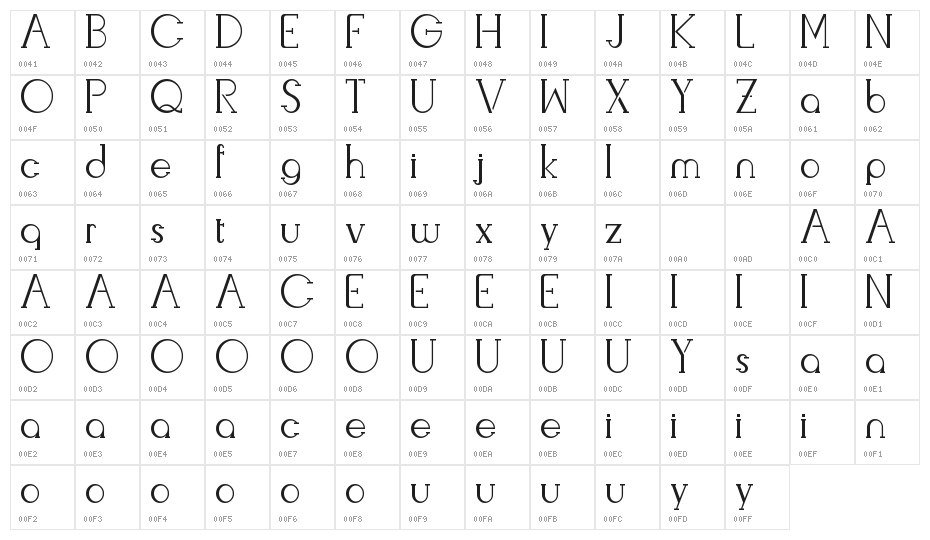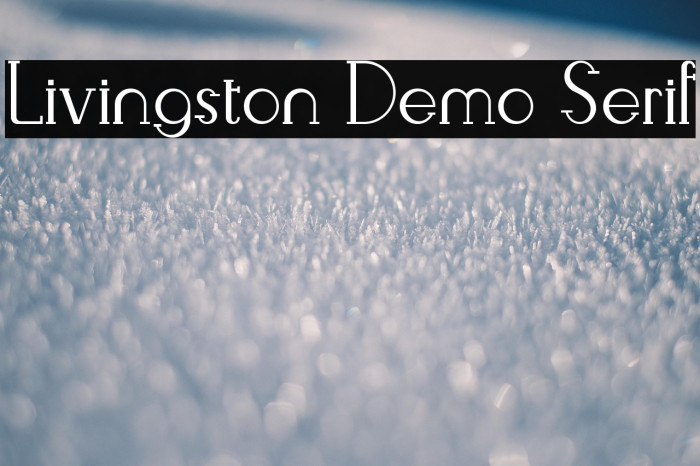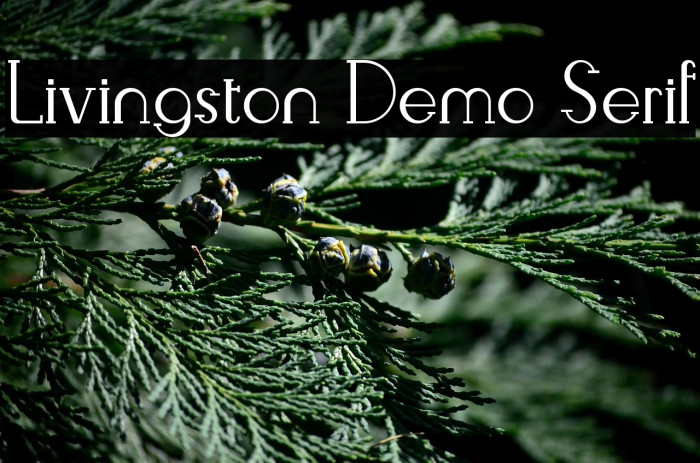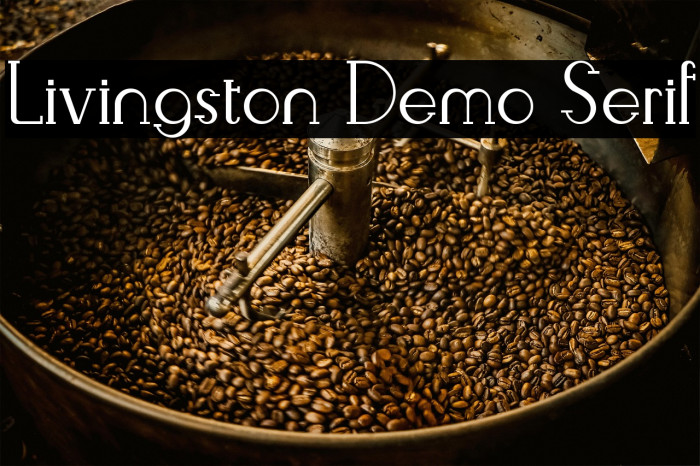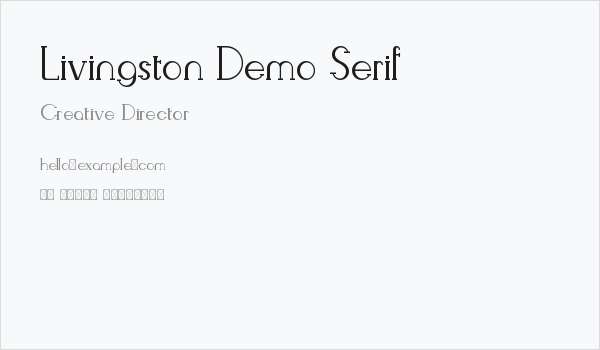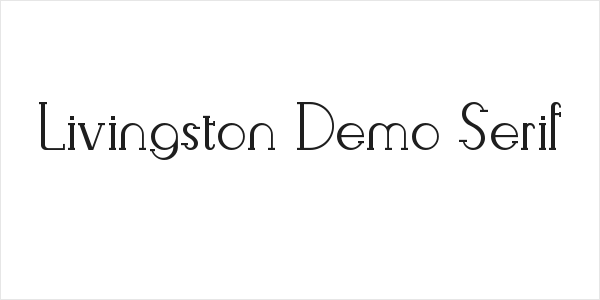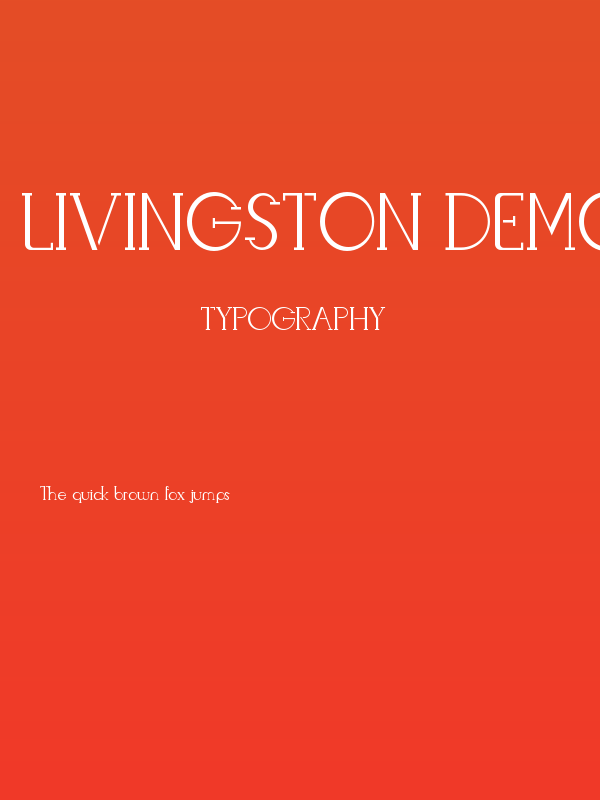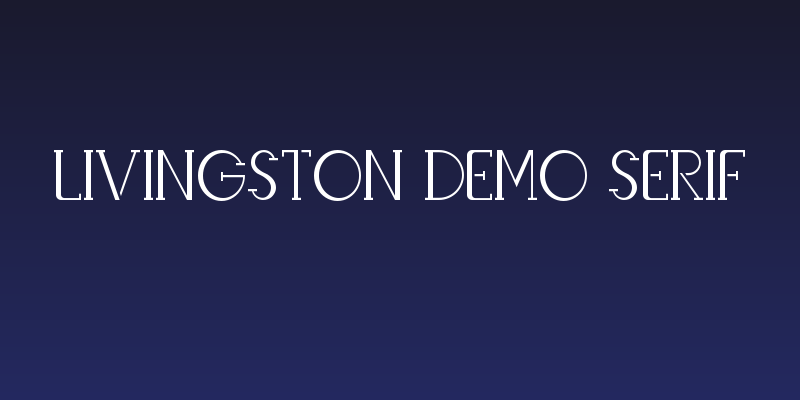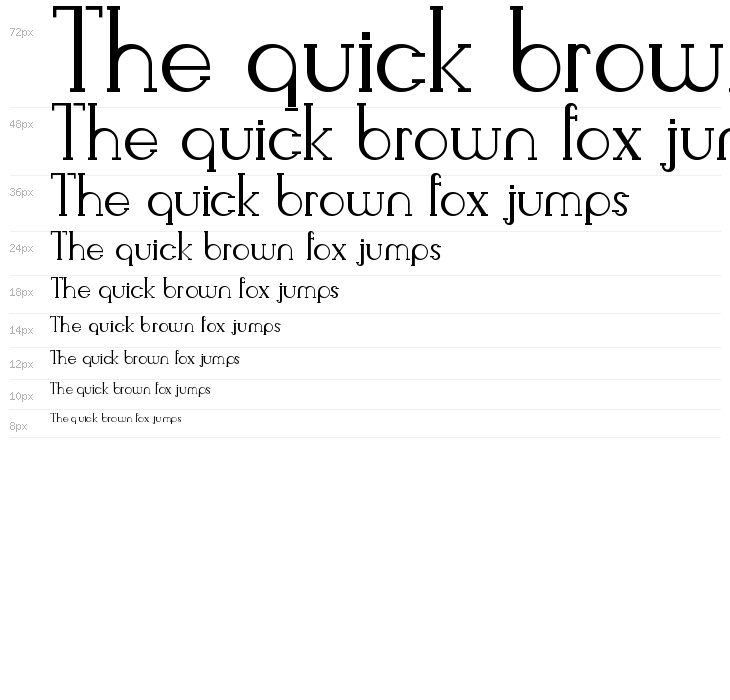
Livingston Demo Serif Font
Livingston Demo Serif Description
This font features a sophisticated serif style with a modern twist, characterized by its elegant and refined letterforms. The uppercase letters exhibit a classic serif structure with subtle curves and sharp angles, giving them a timeless appeal. The lowercase letters maintain a consistent style, with a slightly more playful and rounded appearance. The font's design balances traditional serif elements with contemporary aesthetics, making it versatile for various design applications. Its clean lines and well-proportioned characters ensure readability while adding a touch of elegance.